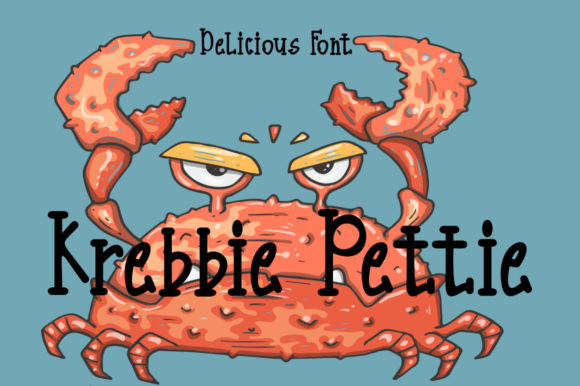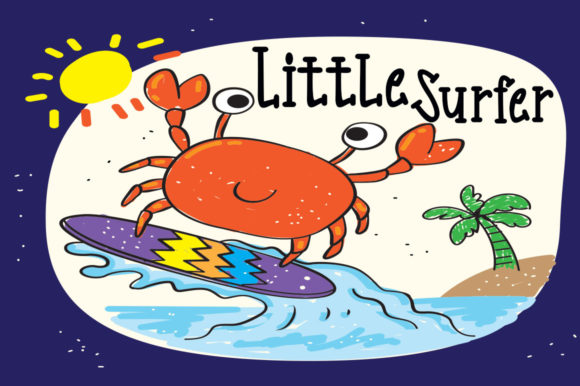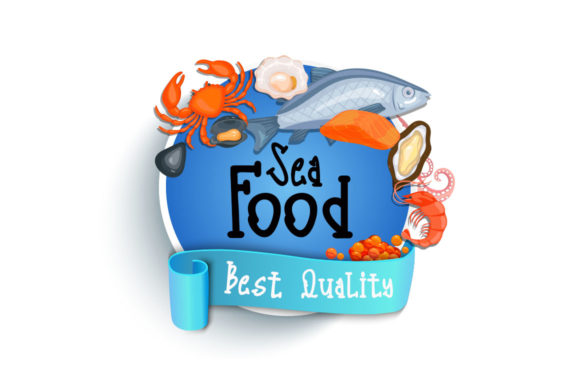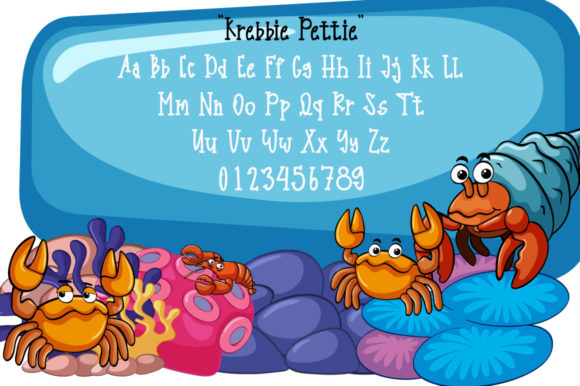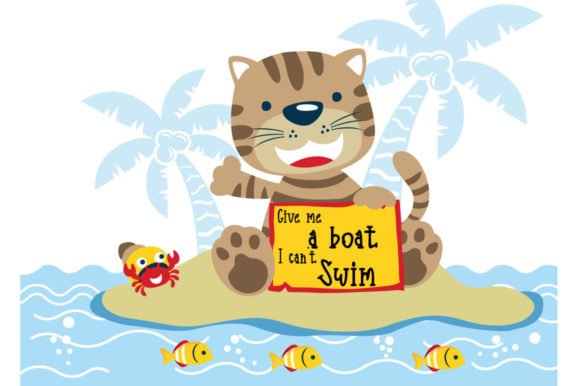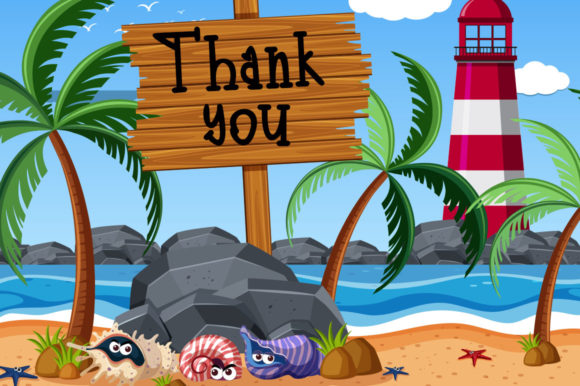
Krebbie Pettie Font
About Krebbie Pettie Font
Krebbie Pettie is a cute and quirky handwritten font. It embodies fun and authenticity. Get creative with its childlike playfulness, and use it to brighten up any kids and school project!